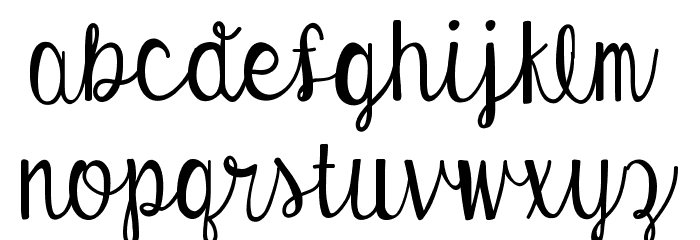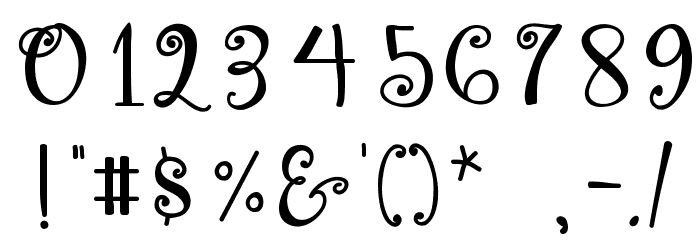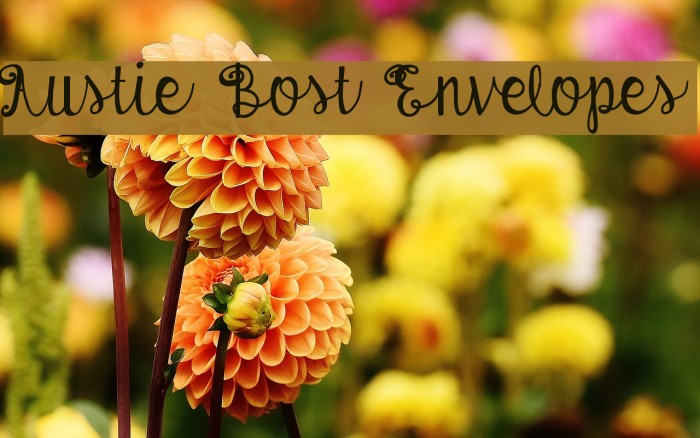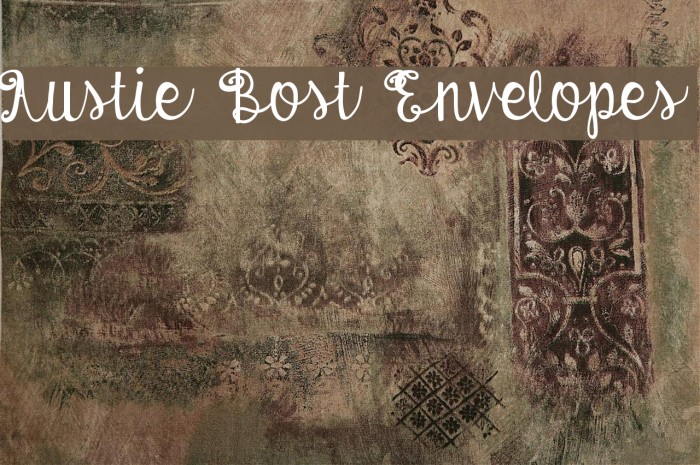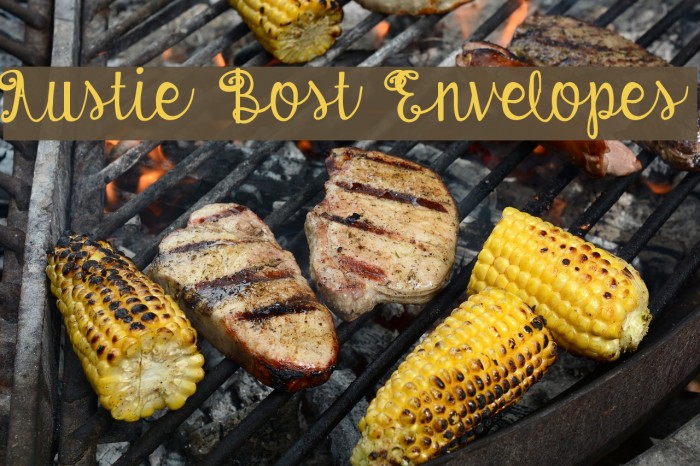
Austie Bost Envelopes Font
This font features a whimsical and playful design, characterized by its curly and looping strokes. The uppercase letters are adorned with decorative swirls, giving them a unique and artistic flair. The lowercase letters maintain a consistent style, with a slightly more subdued embellishment compared to the uppercase. The numerals are equally stylized, with some digits incorporating spiral elements. Special characters are designed to match the overall playful aesthetic, making this font suitable for creative and informal applications.
A whimsical, curly font with decorative swirls and playful elements.
- Proposed Projects: Ideal for greeting cards, invitations, children's book covers, and playful branding projects.
- Use Case: Headlines, Logos, Invitations